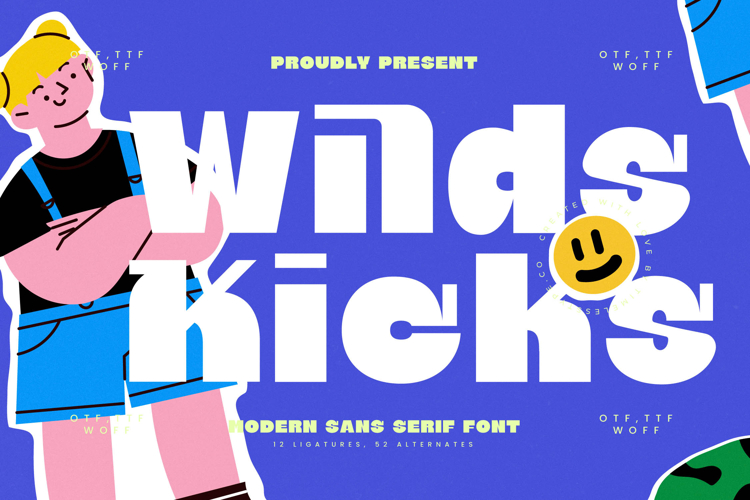
Wilds Kicks - Modern Sans Serif Font
Wilds Kicks is a modern sans serif display font that combines bold geometric forms with playful energy, making it a standout choice for contemporary design. With 12 ligatures and 52 alternates, this typeface offers a versatile toolkit for creating typography that feels dynamic, youthful, and fresh. Its wide proportions, clean lines, and striking alternates allow designers to experiment with layouts that are both impactful and expressive. Wilds Kicks was created to make a statement, perfect for projects that thrive on confidence and creativity.
This font is designed to shine in headline typography, where its bold letterforms instantly capture attention across posters, banners, and editorial covers. In branding and logo design, it conveys strength and modernity, making it ideal for streetwear labels, lifestyle brands, and businesses targeting a youthful audience. Its edgy yet approachable vibe also makes it well-suited for merchandise design, where strong typography is key to visual identity.
Wilds Kicks excels in advertising campaigns and social media content, ensuring messages are delivered with clarity and bold personality. The alternates and ligatures allow for endless experimentation, giving each design a custom-made feel. It’s equally effective in event posters, music promotions, and digital content, where expressive and energetic typography enhances storytelling.
On digital platforms, Wilds Kicks adapts seamlessly to web headers, app graphics, and online campaigns, bringing a modern, high-impact look that resonates with today’s audiences. Whether paired with vibrant visuals or used as the main design element, this font delivers adaptability without sacrificing style.
Ultimately, Wilds Kicks is more than just a sans serif font—it is a design tool for bold expression. Its strong geometric shapes, playful alternates, and youthful energy ensure it works across branding, advertising, packaging, editorial, and digital design, always leaving a powerful and memorable impression.